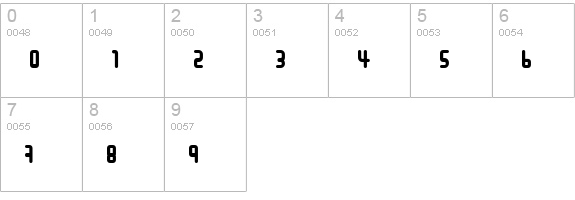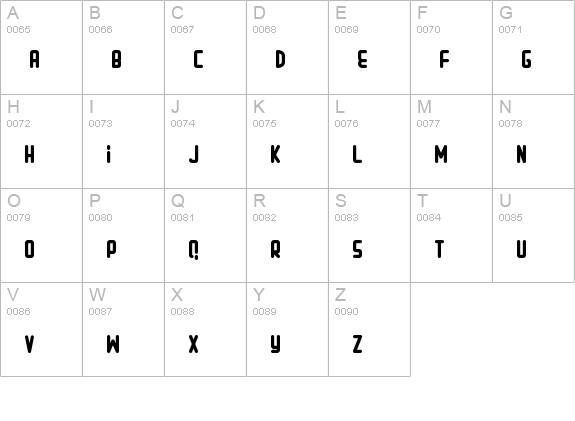
The Small type font is a delightful and versatile typeface that adds a touch of elegance and sophistication to any design project. With its slender and graceful letterforms, this font captures attention and brings a sense of refinement to your text. This font is perfect for those seeking a subtle yet impactful look in their designs. Whether you're working on a logo, website, or print materials, the Small type font will effortlessly enhance the overall aesthetic and make your content stand out. One of the best things about the Small type font is that it is freely available to download at FontsMarket.com. This means that you can easily access this fantastic font without any cost or hassle. It's a wonderful opportunity to elevate your designs without breaking the bank. The Small type font offers a wide range of characters, including uppercase and lowercase letters, numerals, punctuation marks, and special symbols. Its excellent readability ensures that your message will be conveyed clearly and effectively to your audience. With its versatility and timeless appeal, the Small type font is suitable for various design styles and themes. Whether you're going for a classic and traditional look or a modern and sleek vibe, this font has got you covered. So why wait? Start exploring the endless possibilities that the Small type font offers. Download it for free today at FontsMarket.com and elevate your designs to new levels of excellence.